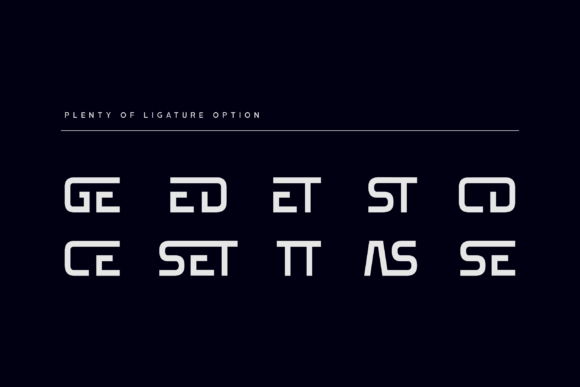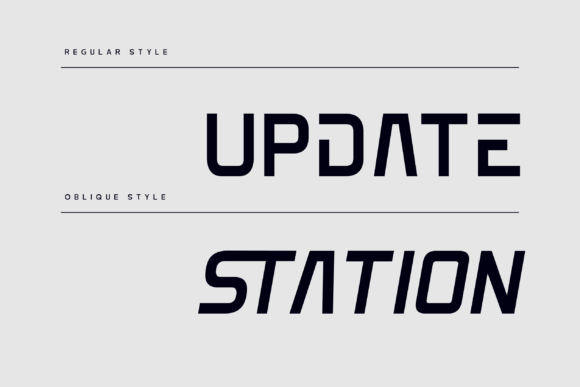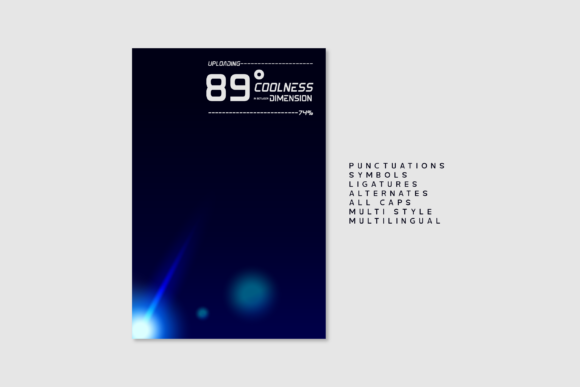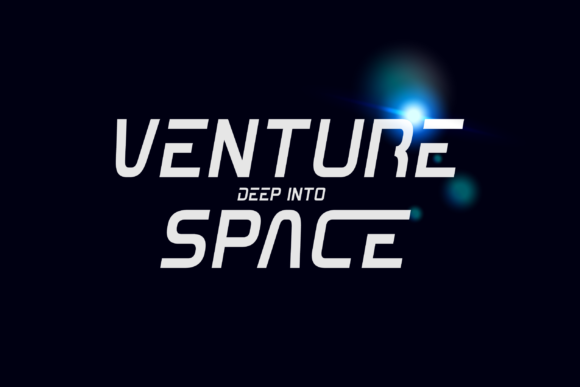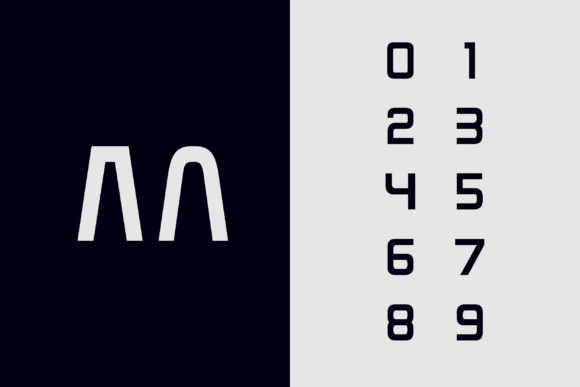
Introducing Edge Font: The Ultimate Choice for Bold and Futuristic Designs
Are you tired of using the same old fonts for your creative projects? Look no further than Edge Font, a simple, bold, and futuristic display font that’s sure to take your designs to the next level. With its sleek and modern aesthetic, Edge Font is the perfect addition to any designer’s toolkit.
The Characteristics of Edge Font
So, what makes Edge Font so special? For starters, its bold and futuristic design gives it a unique edge (pun intended) over other fonts on the market. Its clean lines and geometric shapes make it perfect for creating striking headlines, titles, and captions that demand attention.
But Edge Font is more than just a pretty face. It’s also incredibly versatile, making it suitable for a wide range of design applications, from branding and advertising to packaging and digital media. Whether you’re working on a logo, brochure, or social media campaign, Edge Font is sure to make your designs stand out from the crowd.
The Benefits of Using Edge Font
So, why should you choose Edge Font for your next design project? Here are just a few benefits of using this amazing font:
• Instant Impact: Edge Font’s bold and futuristic design makes it perfect for creating eye-catching headlines and titles that grab attention and draw the reader in.
• Versatility: Whether you’re working on a logo, brochure, or social media campaign, Edge Font is versatile enough to adapt to any design style or application.
• Easy to Read: Despite its bold design, Edge Font is surprisingly easy to read, even at smaller sizes, making it perfect for use in body copy and other text applications.
• Unique Aesthetic: Edge Font’s futuristic design gives it a unique aesthetic that’s sure to set your designs apart from the competition.
How to Use Edge Font in Your Designs
So, how can you start using Edge Font in your designs? Here are a few tips to get you started:
• Pair it with a Serif Font: For a classic look, pair Edge Font with a serif font like Arial or Times New Roman. This will create a striking contrast between the bold, futuristic Edge Font and the more traditional serif font.
• Use it for Headlines: Edge Font is perfect for creating eye-catching headlines and titles. Use it to draw attention to key messages or to create a bold and striking visual effect.
• Experiment with Colors: Edge Font looks great in a variety of colors, from bold and bright to more muted and subtle tones. Experiment with different colors to find the perfect look for your design.
In conclusion, Edge Font is a simple, bold, and futuristic display font that’s sure to take your designs to the next level. With its sleek and modern aesthetic, versatility, and ease of use, Edge Font is the perfect addition to any designer’s toolkit. So why wait? Add Edge Font to your favorite creative ideas and notice how it makes them come alive!